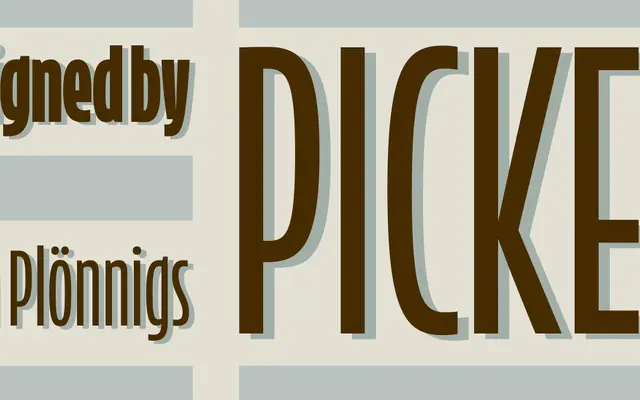
A six-weight geometric sans from Indian Type Foundry, running from Extralight to Bold without italic companions.
Six upright weights from Extralight through to Bold make up this geometric sans from Indian Type Foundry. With no italics or condensed cuts, the family is compact but covers a practical range for text and display work. The even progression across weights gives it flexibility for hierarchical typesetting.
Picket presents clean, upright forms with no italic variants and a geometric construction, suggesting a geometric sans-serif classification. The even weight distribution across the six styles reinforces this reading.